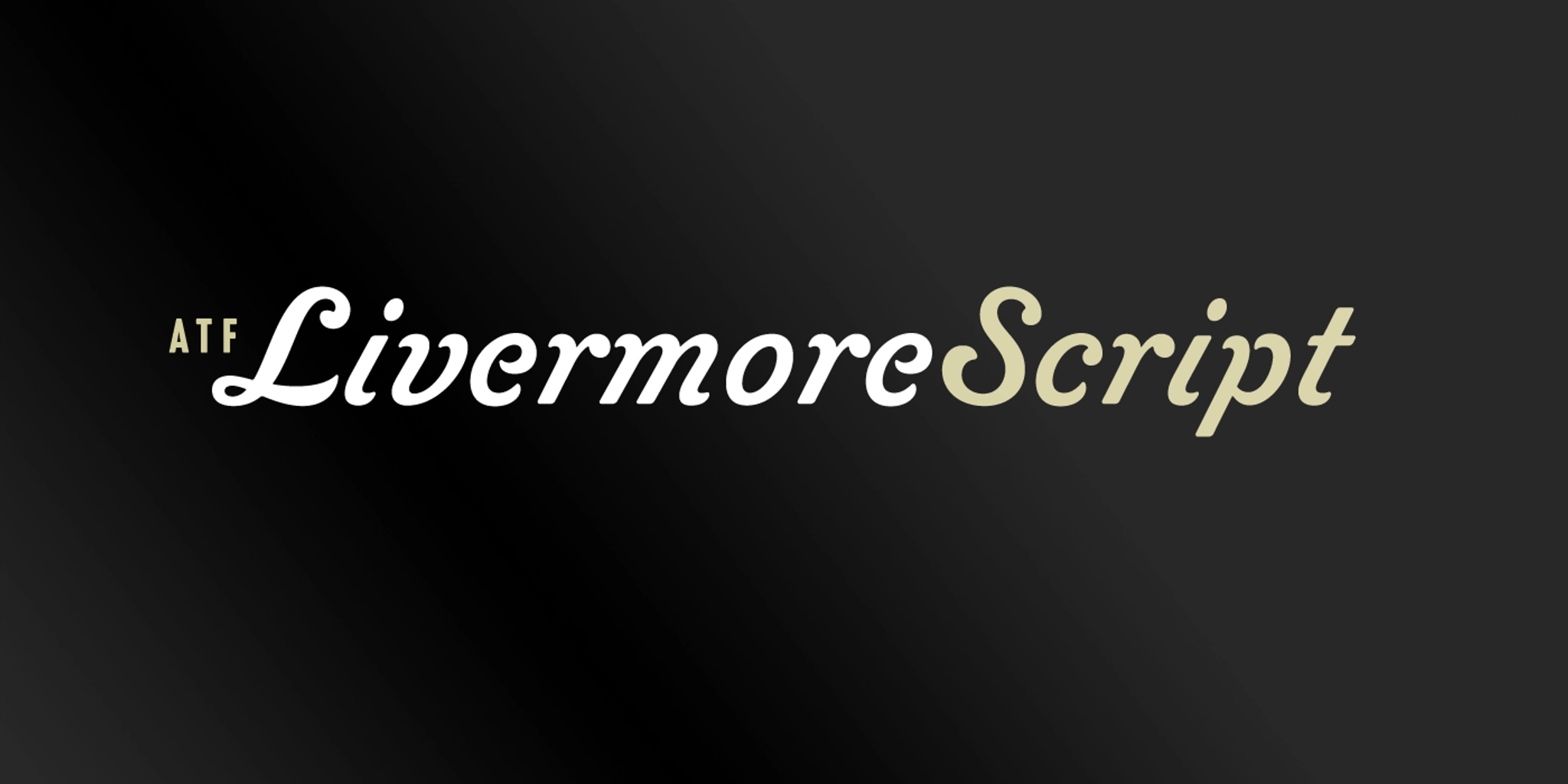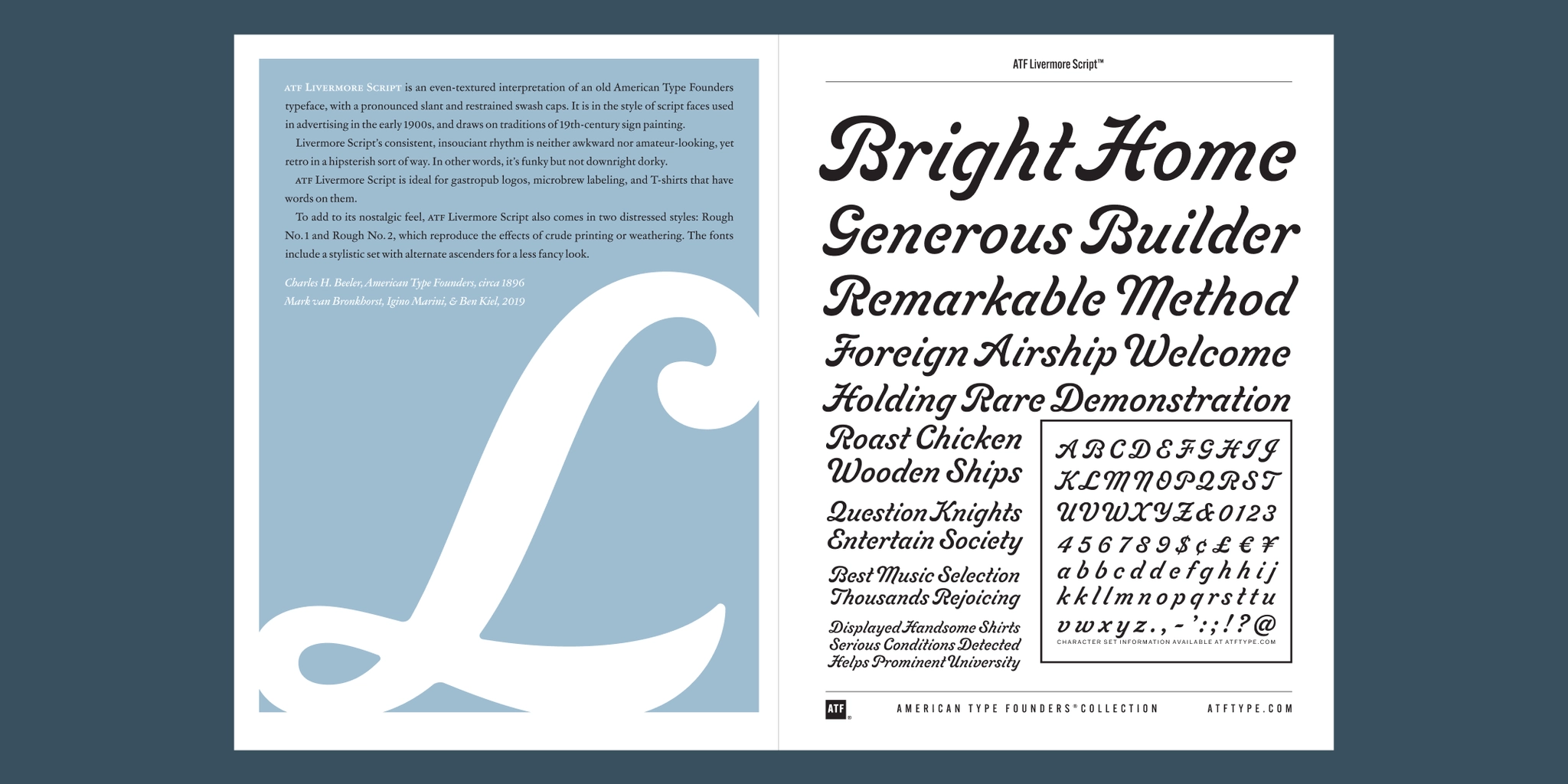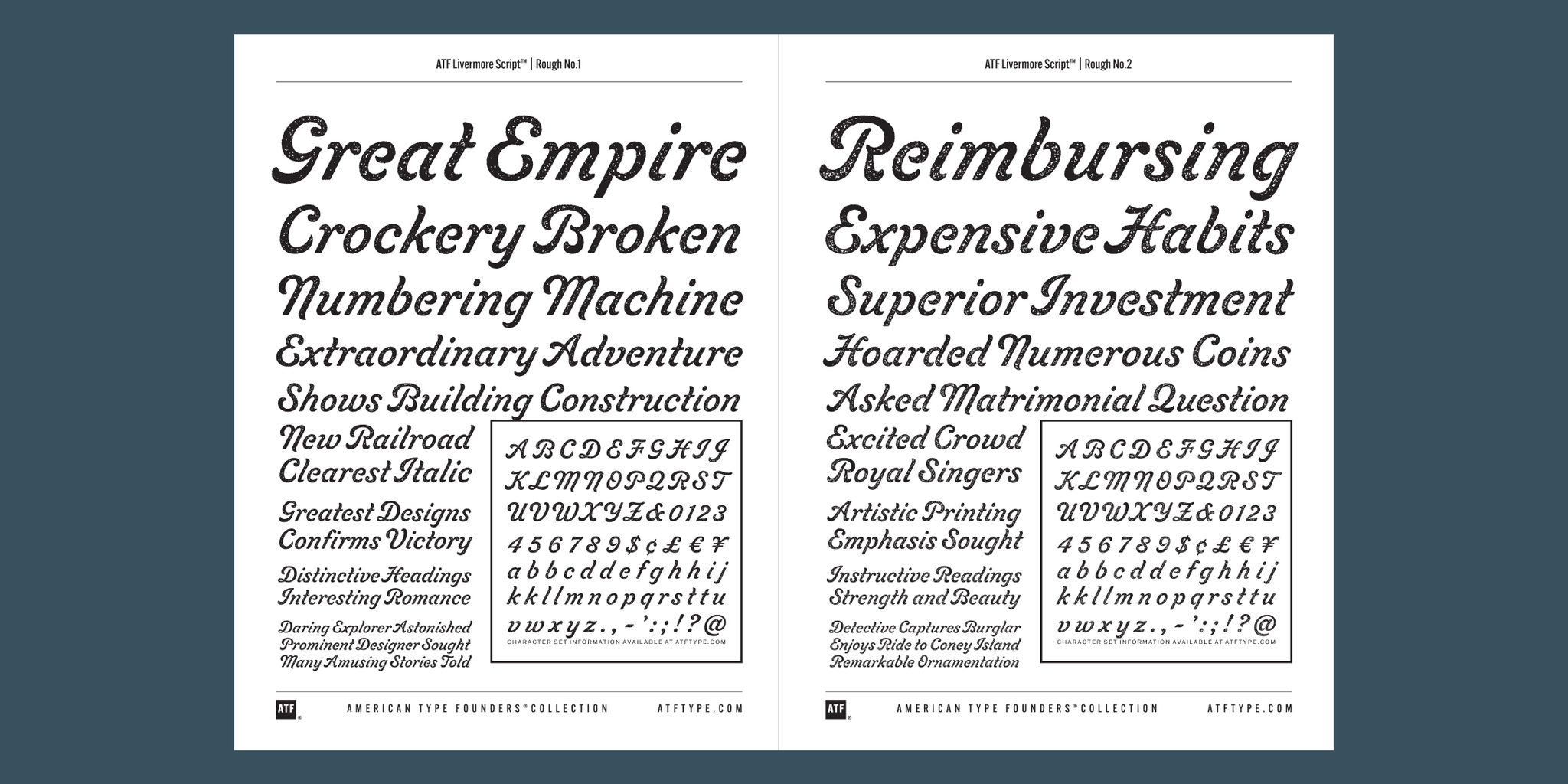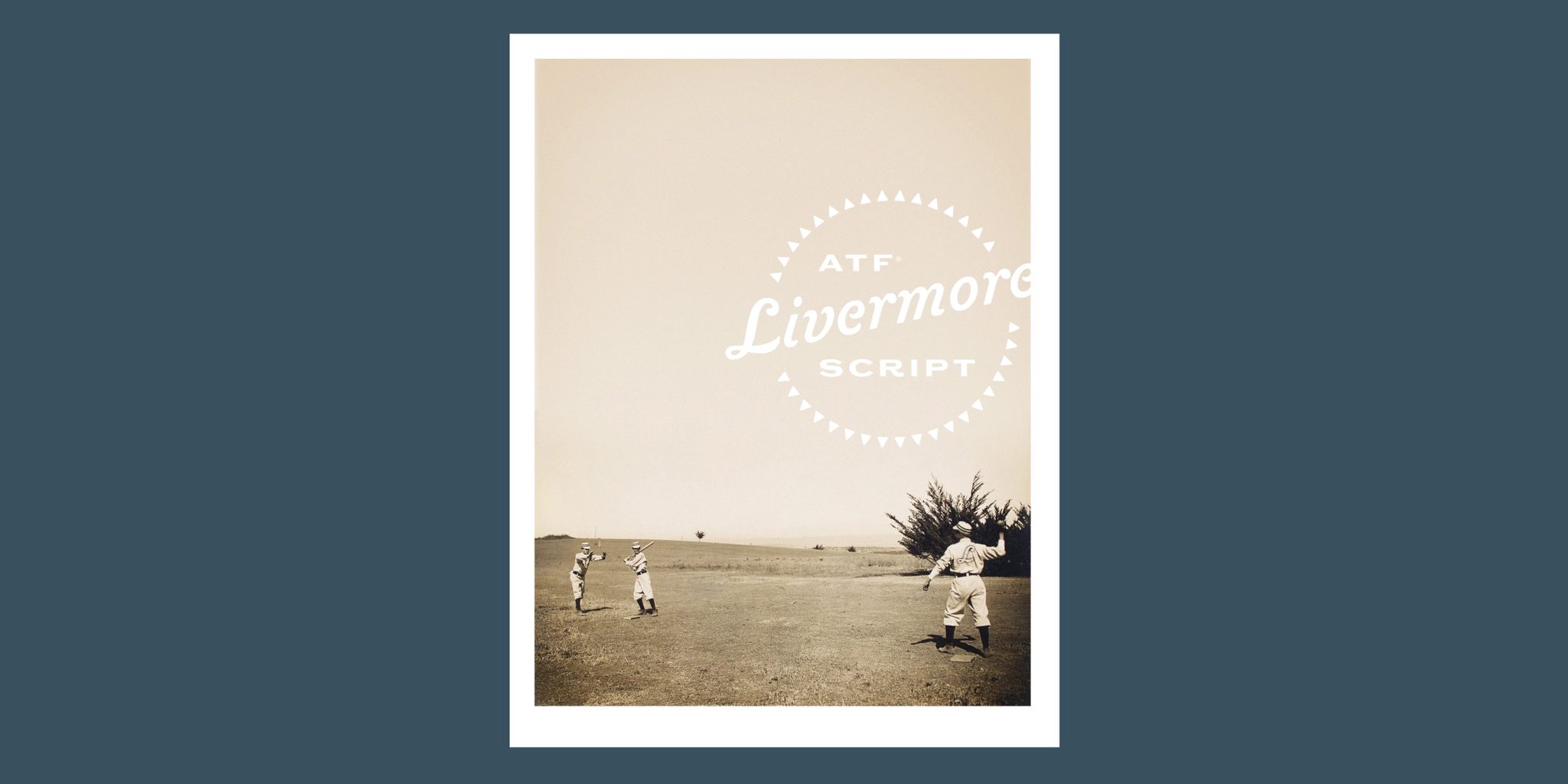
Livermore Script Font Family
Designed by Charles H. Beeler, Mark Van Bronkhorst, Igino Marini, and Ben Kiel.
1896 and 2019.
The American Type Founders collection was developed by Mark van Bronkhorst.
Livermore Script is a sign-painted stencil font family like other typefaces used in the early 1900s. Perfect for giving any brand or packaging a nostalgic feel.
ATF Livermore Script is an even-textured interpretation of an old American Type Founders typeface, with a pronounced slant and restrained swash caps. It is in the style of script faces used in advertising in the early 1900s, and draws on traditions of 19th-century sign painting.
Livermore Script’s consistent, insouciant rhythm is neither awkward nor amateur-looking, yet retro in a hipsterish sort of way. In other words, it’s funky but not downright dorky.
ATF Livermore Script is ideal for gastropub logos, microbrew labeling, and T-shirts that have words on them.
To add to its nostalgic feel, ATF Livermore Script also comes in two distressed styles: Rough No. 1 and Rough No. 2, which reproduce the effects of crude printing or weathering. The fonts include a stylistic set with alternate ascenders for a less fancy look.